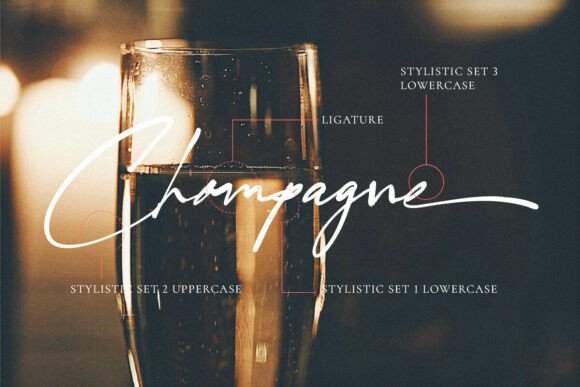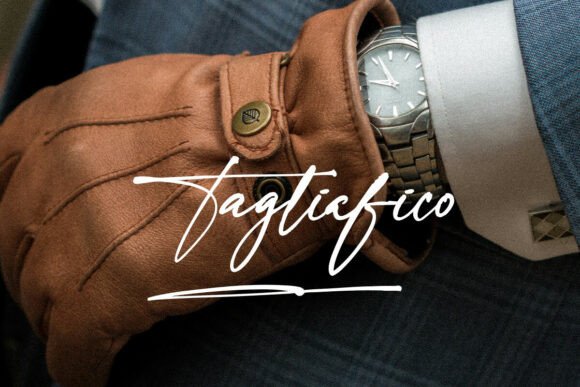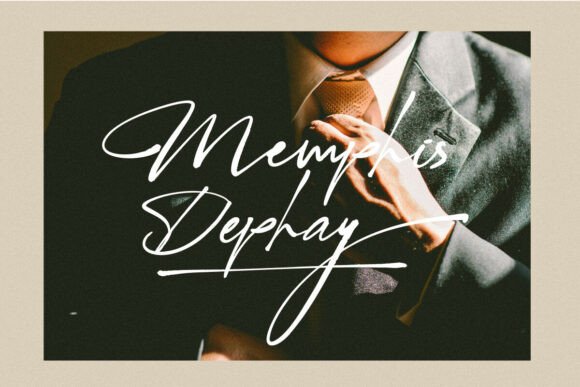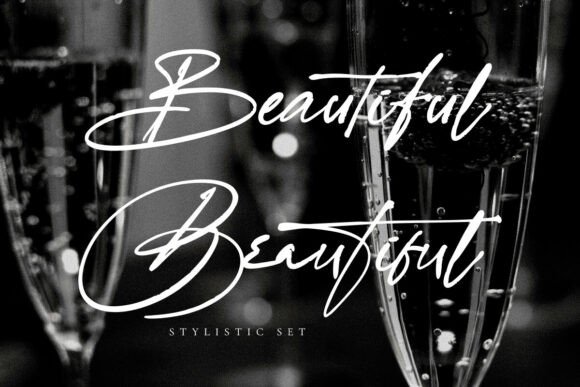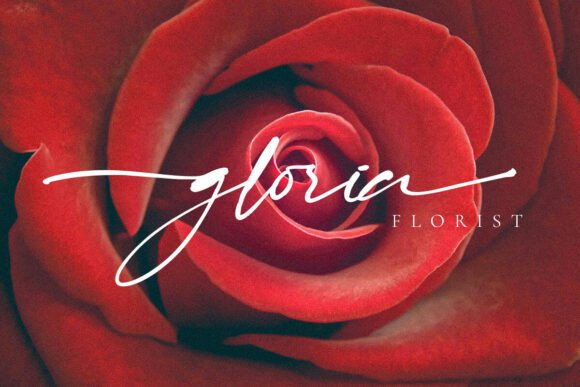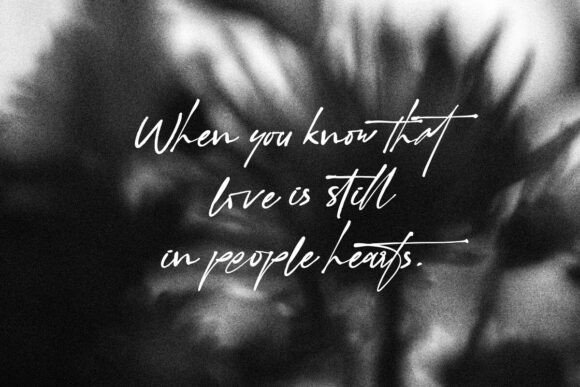
Bastony Signature Font: Elevate Your Design with a Powerful Ink-Brush Script
In the world of typography, a signature font can make all the difference in creating a lasting impression. For designers and crafters looking for a typeface that exudes luxury, sophistication, and a touch of artistic flair, Bastony Signature is an exceptional choice. This powerful and realistic Ink-Brush Script font captures the dynamic movement and raw texture of a brush stroke, creating a dramatic, personal, and luxurious signature that elevates any design.
Unleash Your Creativity with a Highly Expressive Typeface
Bastony Signature is a highly expressive typeface that features dramatic, long sweeps, high-contrast weight variation, and naturalistic dry brush textures. These characteristics give it an authentic, sophisticated hand-painted feel that’s perfect for bespoke branding, high-end packaging, magazine titles, and elegant wedding stationery. The font’s unique blend of elegance and artistic flair makes it an excellent tool for designers seeking to add a touch of exclusivity to their work.
Loaded with Features for Endless Creative Possibilities
What sets Bastony Signature apart is its extensive feature set. The font comes loaded with 48+ ligatures and swashes across 4 stylistic sets, providing designers with a wide range of creative possibilities. This level of versatility ensures that your design conveys professionalism, artistic flair, and a sense of unique, high-quality craftsmanship. Whether you’re working on a logo, a wedding invitation, or a magazine title, Bastony Signature has the flexibility to adapt to your design needs.
Perfect for Projects that Demand a Grand Statement
Bastony Signature is a powerful Realistic Ink-Brush Script that’s perfect for projects that need to make a grand, unforgettable statement. Its luxurious and sophisticated feel makes it an ideal choice for high-end branding, packaging, and editorial design. The font’s ability to convey a sense of exclusivity and high-quality craftsmanship also makes it a popular choice for elegant wedding stationery and bespoke branding.
Why Choose Bastony Signature?
- Realistic Ink-Brush Script: Captures the dynamic movement and raw texture of a brush stroke for a dramatic and personal touch.
- Highly Expressive: Features dramatic, long sweeps, high-contrast weight variation, and naturalistic dry brush textures for an authentic, sophisticated hand-painted feel.
- Extensive Feature Set: Includes 48+ ligatures and swashes across 4 stylistic sets for endless creative possibilities.
- Versatile: Suitable for bespoke branding, high-end packaging, magazine titles, elegant wedding stationery, and more.
- Conveys Professionalism and Artistic Flair: Ensures your design exudes exclusivity, high-quality craftsmanship, and a touch of artistic flair.
Elevate Your Design with Bastony Signature
In conclusion, Bastony Signature is an exceptional font choice for designers and crafters seeking to elevate their work with a powerful and realistic Ink-Brush Script. Its highly expressive typeface, extensive feature set, and luxurious feel make it the ultimate tool for creating bespoke branding, high-end packaging, magazine titles, and elegant wedding stationery that demands attention. With Bastony Signature, you can ensure that your design conveys professionalism, artistic flair, and a sense of unique, high-quality craftsmanship.
Whether you’re a seasoned designer or a crafter looking to add a touch of exclusivity to your work, Bastony Signature is an excellent choice. Its versatility, combined with its sophisticated and artistic feel, makes it an invaluable addition to any design project. So why settle for an ordinary font when you can make a grand statement with Bastony Signature?